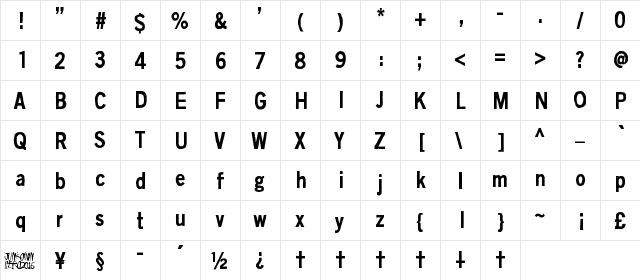
Black is not a color Regular
Design Context for Black is not a color Typeface
Black is not a color offers clean, dependable letterforms without strong stylistic allegiance, making it a practical choice for designers who need flexibility.